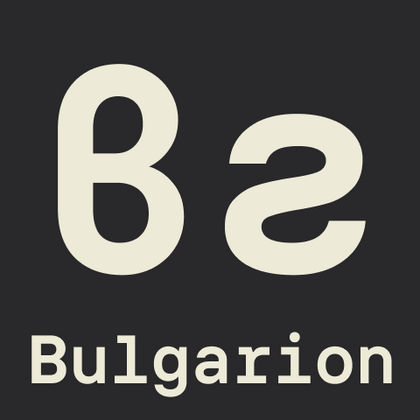
The Bulgarian (lat) fonts selection
Setting Bulgarian in Latin script looks simple until transliterated names, addresses, and bilingual layouts start exposing gaps in a typeface's character set. The Bulgarian (lat) fonts selection gathers TypeType families that, according to the studio, include the Bulgarian (lat) alphabet. Romanized text can then run through headlines, interfaces, and print without substitutions, mismatched glyphs, or broken spacing.
The Challenge The Bulgarian (lat) fonts selection Solves
Bulgarian is usually written in Cyrillic, yet romanized versions appear constantly. They show up in passports and addresses, transport signage, international brand names, and web interfaces aimed at readers abroad. A typeface that handles standard English copy may still render transliterated text unevenly. It might drop to a fallback for a missing character or produce inconsistent spacing where Cyrillic and Latin lines sit side by side. These flaws are easy to miss in a mockup and costly once a sign is printed or a site goes live. The Bulgarian (lat) fonts selection addresses this by grouping families listed as covering the required alphabet. Designers should still test their actual copy before committing.
What Makes These Bulgarian (lat) Typefaces Distinct
TypeType states that every family here includes the Bulgarian (lat) alphabet, but coverage goes further than one language. The character sets extend across the Latin writing system with diacritical marks, so the same typeface can serve text for many other countries. Currency and punctuation symbols are included. Each family offers multiple weights or variants alongside OpenType features for finer typographic control. Many families in the Bulgarian (lat) fonts selection also come with a variable version, which lets designers tune the design more precisely for a specific layout instead of choosing only from fixed steps. Technical quality is consistent, so switching between families does not introduce new rendering problems.
Where The Bulgarian (lat) fonts selection Is Used
The range of applications is wide, and the selection is built to cover it. Long text blocks call for a calm, even rhythm, while headings for websites and printed publications need presence without losing clarity. Some projects leave paper behind entirely. The families suit printing on various materials, including fabric, as well as signs and posters where romanized Bulgarian must read at a distance. Magazines, newsletters, and advertising form another group, and each makes its own demands on density and tone. Romanized Bulgarian also matters in less obvious settings. Hotels, museums, and transit operators often label locations in Latin script for visitors. Exporters and startups present company names to international partners, and digital products localize menus and forms. In each case, the Bulgarian (lat) fonts selection gives teams one dependable source. Local and international materials can then share the same typographic voice instead of relying on improvised substitutes.
TT Glips is an experimental monospaced sans serif with a handmade feel. At small sizes it looks technological, but as the size grows, rounded details and soft forms come through.
TT Polihaus is an experimental sans serif that, at first glance, looks ordinary, but then breaks apart, transforming into a stencil pattern.
TT Odellia is an old-style serif with a modern design, inspired by Venetian typefaces and classical music.
TT Nooks Serif is a display modern serif with a slight touch of egocentricity. It has a sharp and firm, yet elegant and stately character.
TT Nooks Script features a unique design that has no direct analogs.
TT Bells combines the elegant softness of Antiqua with a complex and daring temper reflected in straight stroke terminals and arrowheaded serifs. The typeface is based on the broad nib, which creates these hallmark terminals and serifs.
TT Severs is a geometric sans serif with emphasized elements of internal brackets. The main visual feature of TT Severs is the unusual form of internal ovals.
TT Jenevers is a modern serif with a Dutch flavor. The font family features the characteristic details peculiar to Dutch serifs—these are the asymmetrical shape of serifs and an irregular slant of ovals.
TT Regins is a Scottish modern serif. Striking contrast and sharp triangular serifs give this font a stern and commanding character, while refined forms, enlarged lowercase letters, and slightly condensed, static proportions add grace to its design.